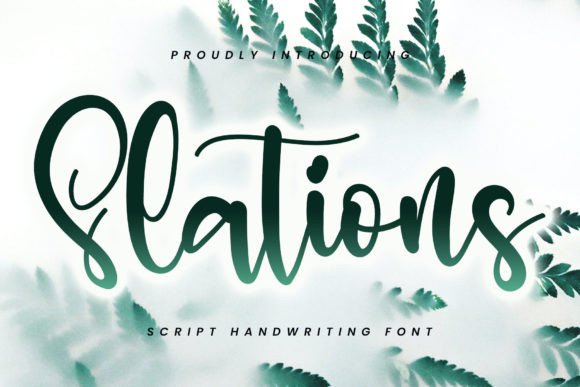
Feast your eyes on Slations Font, a script font family that exudes elegance and sophistication. Its meticulously crafted characters dance across the page, leaving a trail of beauty and charm. With its sweeping strokes and graceful curves, Slations Font embodies the essence of timeless artistry.
Designed by the esteemed YanStudio, Slations Font is a versatile masterpiece that effortlessly adapts to a myriad of creative endeavors. Whether you're crafting heartfelt greeting cards, designing captivating headlines, or building a brand identity that radiates professionalism, Slations Font will elevate your projects to new heights.
Step into a world of boundless creativity with Slations Font. Its carefully curated glyphs and ligatures, accessible through PUA encoding, unlock a treasure trove of possibilities. Unleash your imagination and weave enchanting typographic tapestries that captivate and inspire.
With Slations Font as your creative companion, you'll embark on a journey of self-expression and artistic fulfillment. Let its elegant strokes ignite your passion and transform your designs into masterpieces that resonate with your audience.